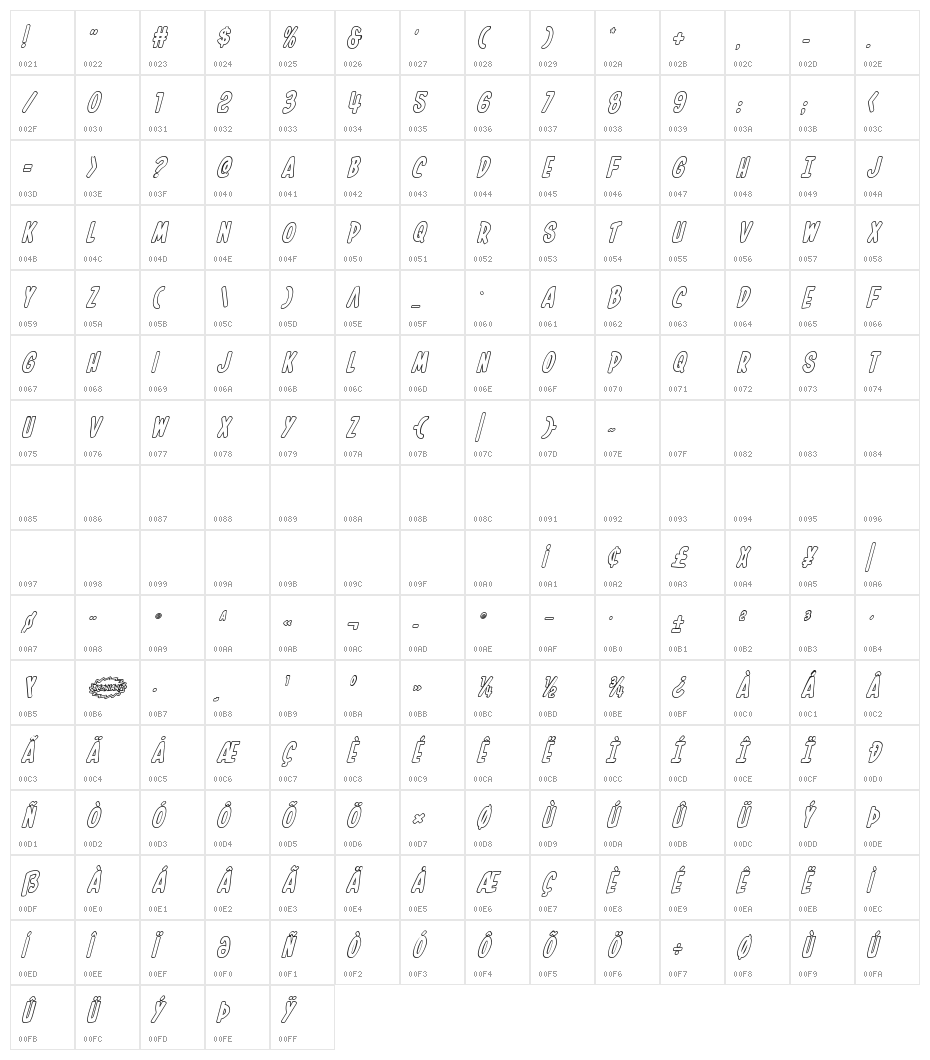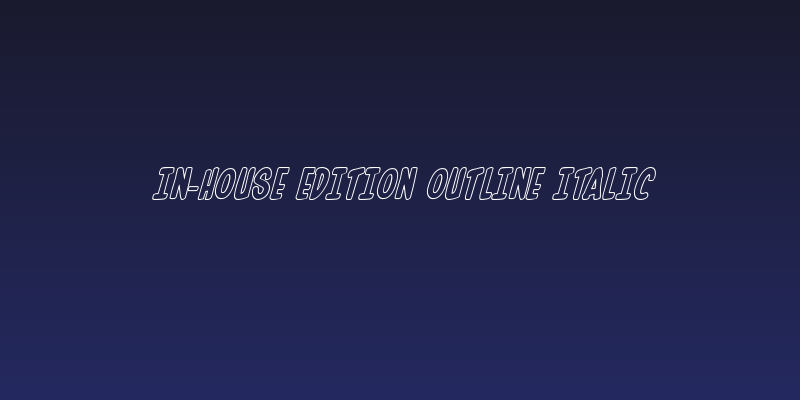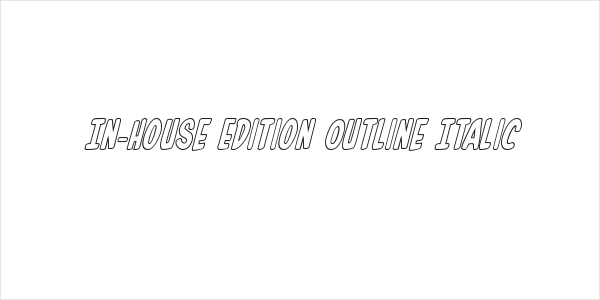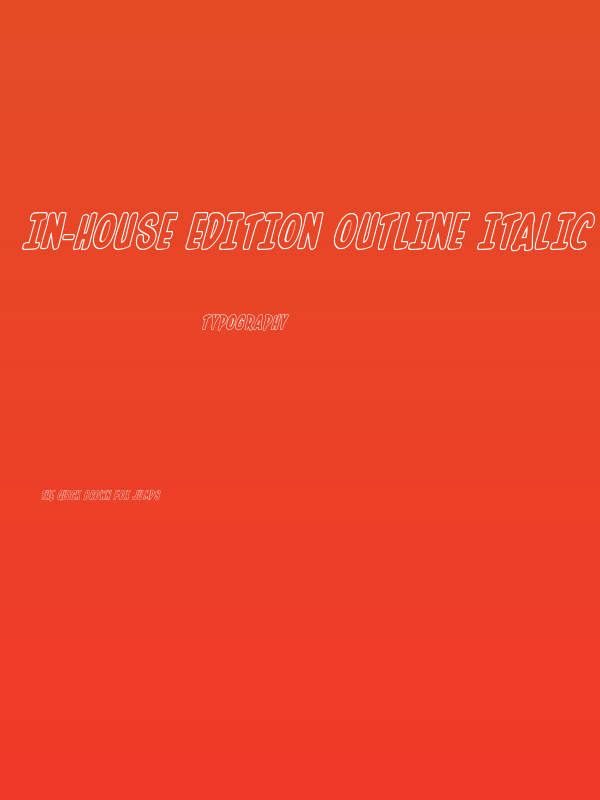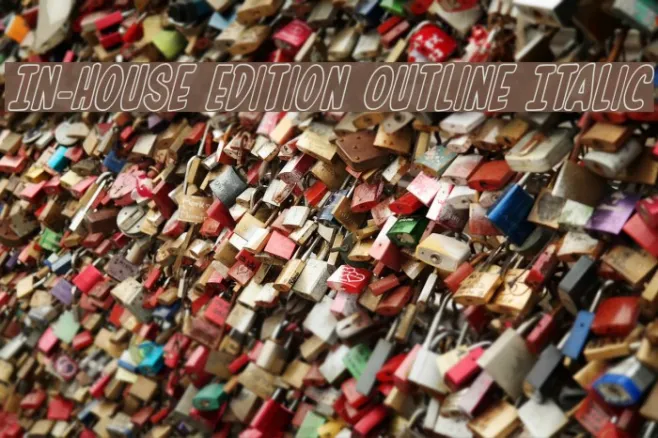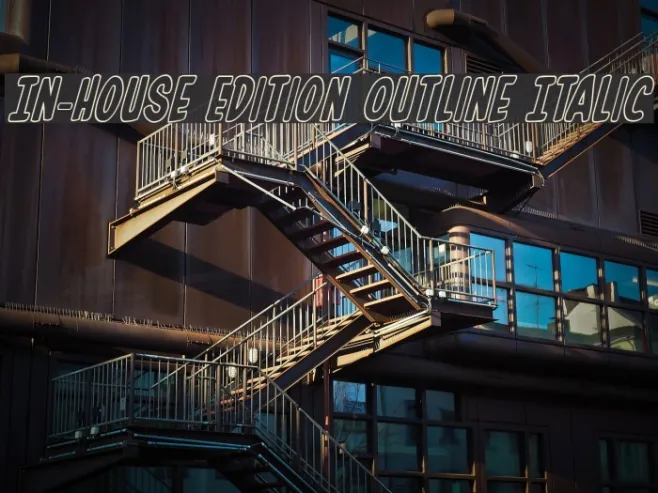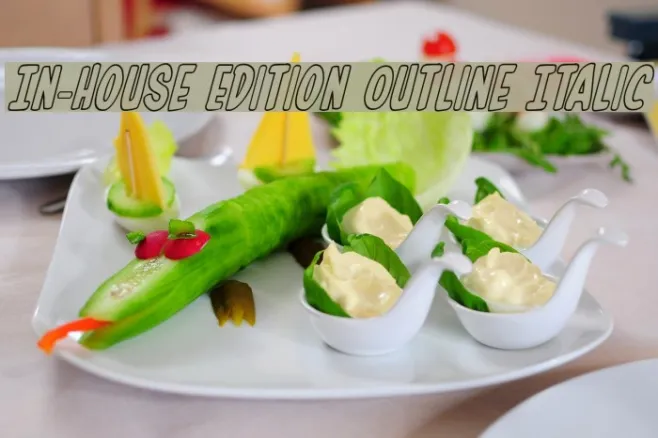
In-House Edition Outline Italic Font
In-House Edition Outline Italic Description
This font features a bold, outlined style with a playful and dynamic appearance. The letters are italicized, giving them a forward-leaning stance that adds a sense of motion and energy. The outline design creates a hollow effect, making the characters stand out with a unique visual appeal. The font maintains consistent stroke thickness throughout, ensuring readability while offering a modern twist. Its rounded edges and smooth curves contribute to a friendly and approachable look, making it suitable for a variety of creative applications.